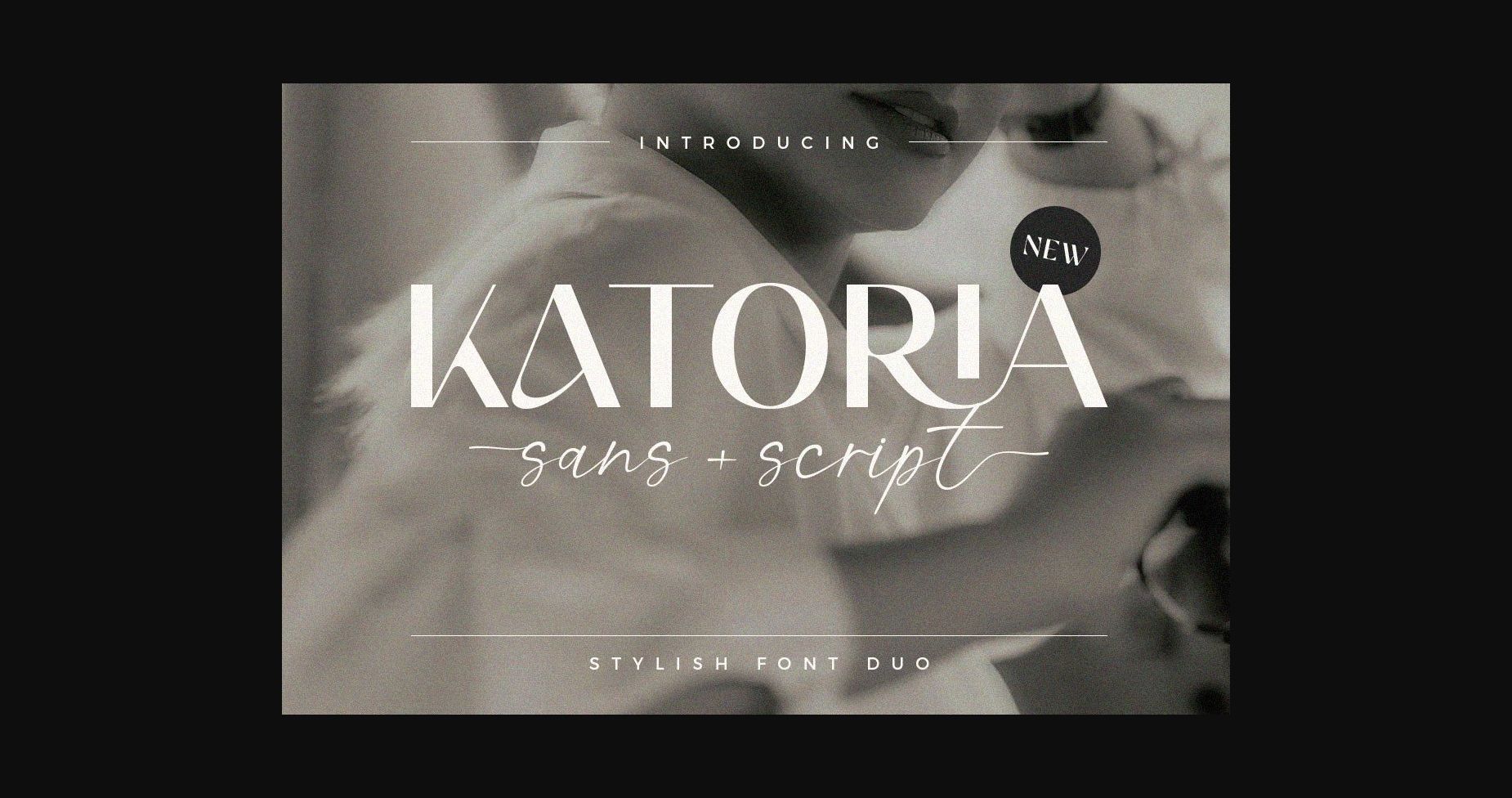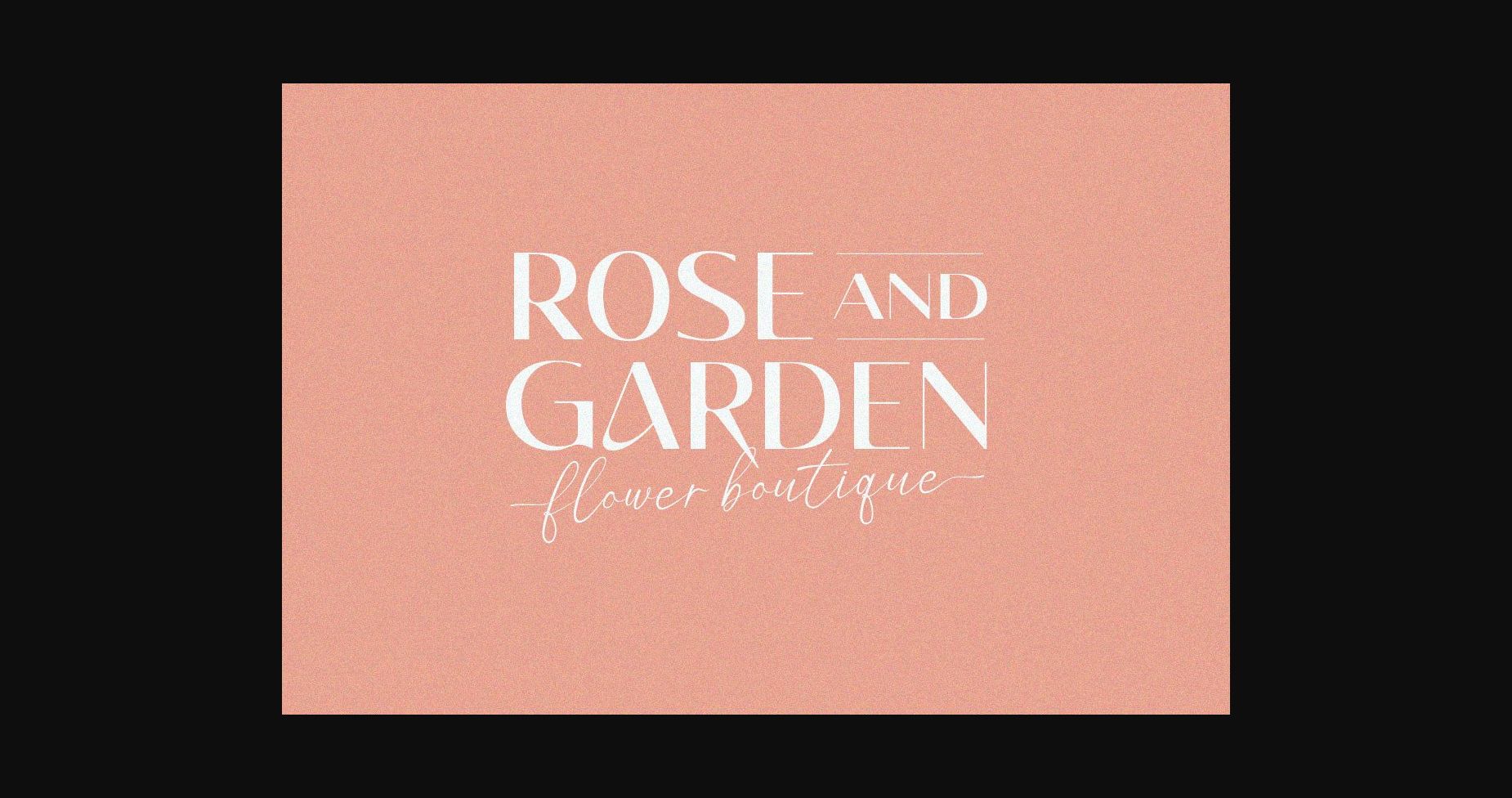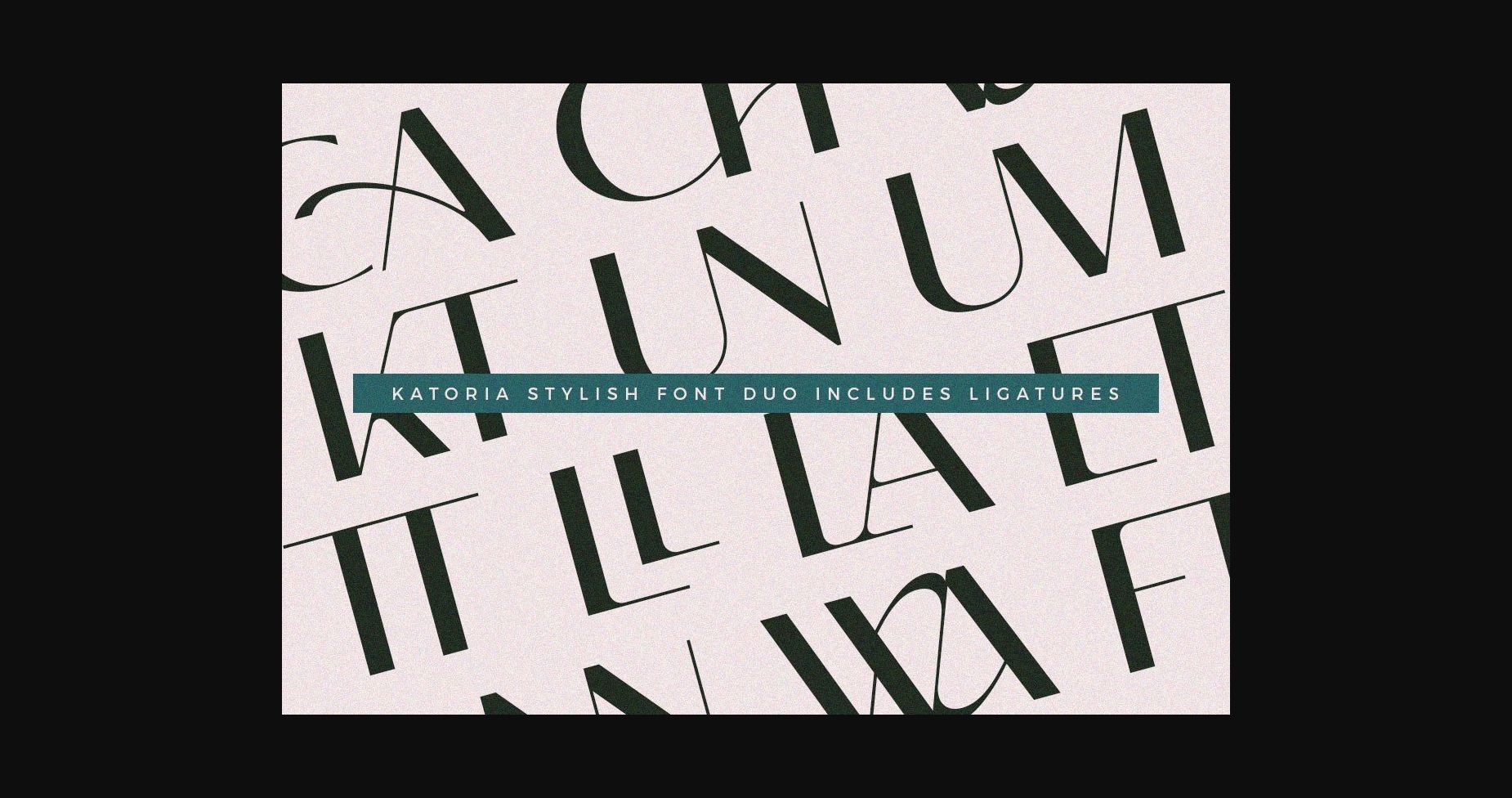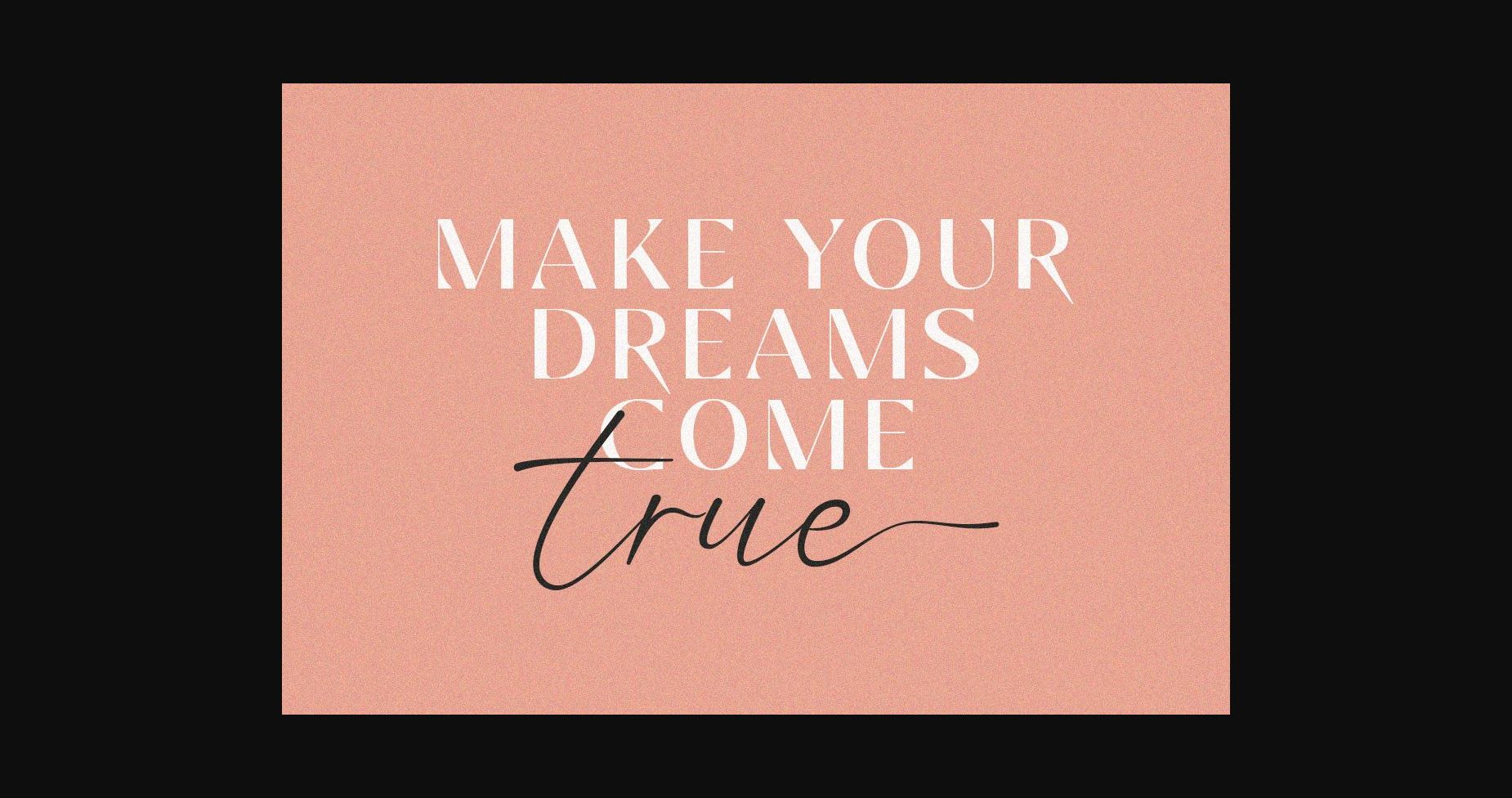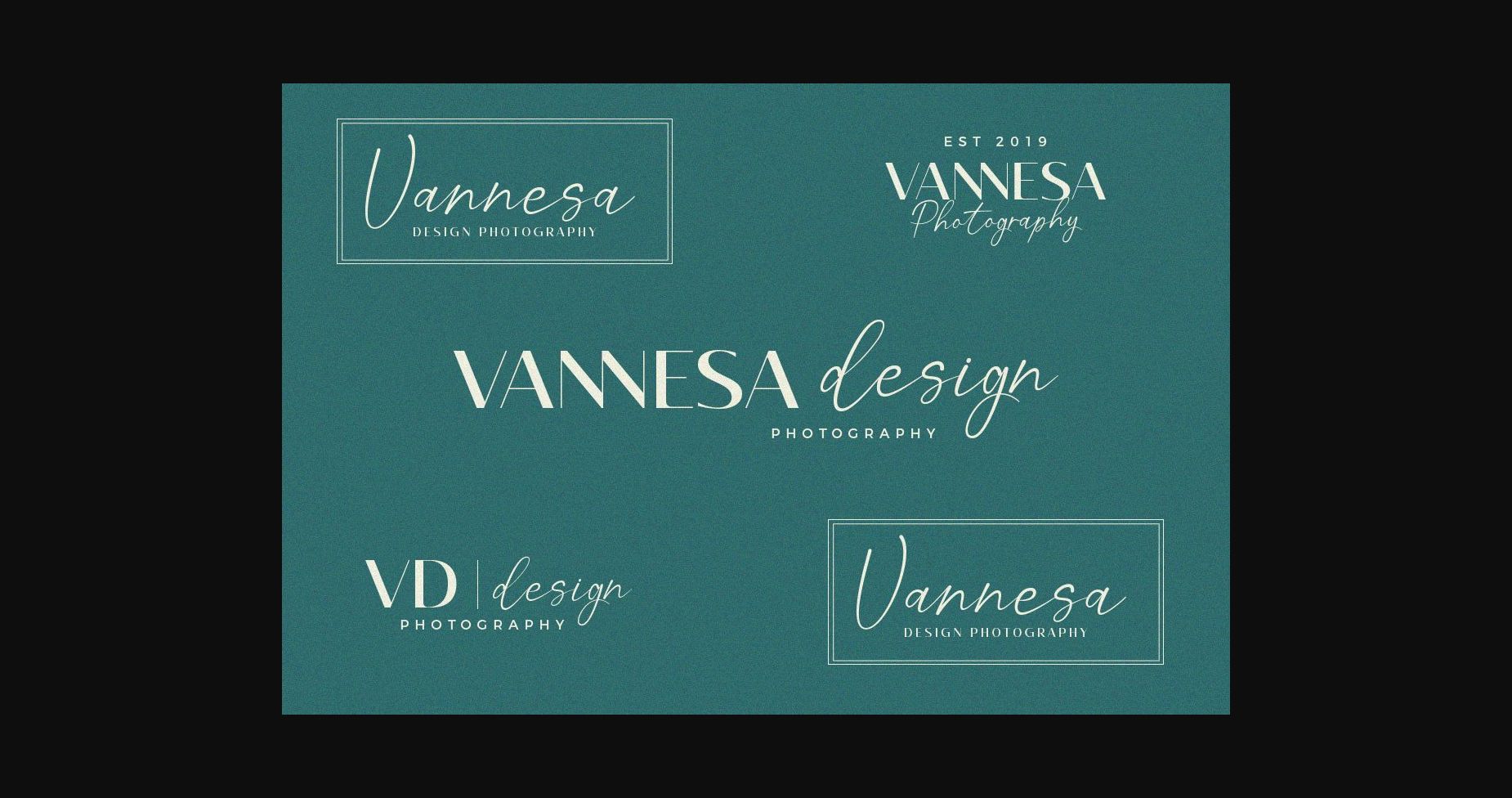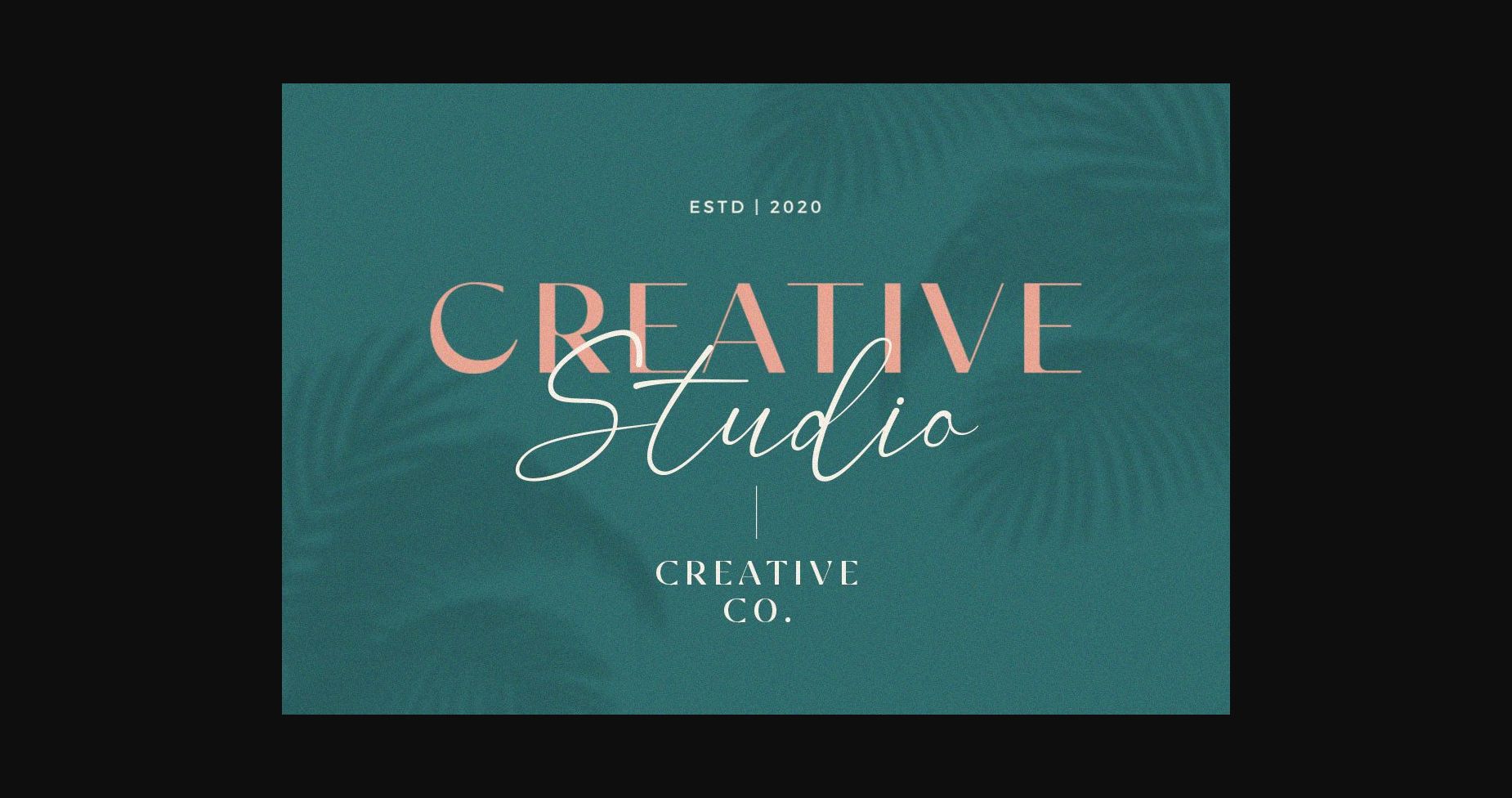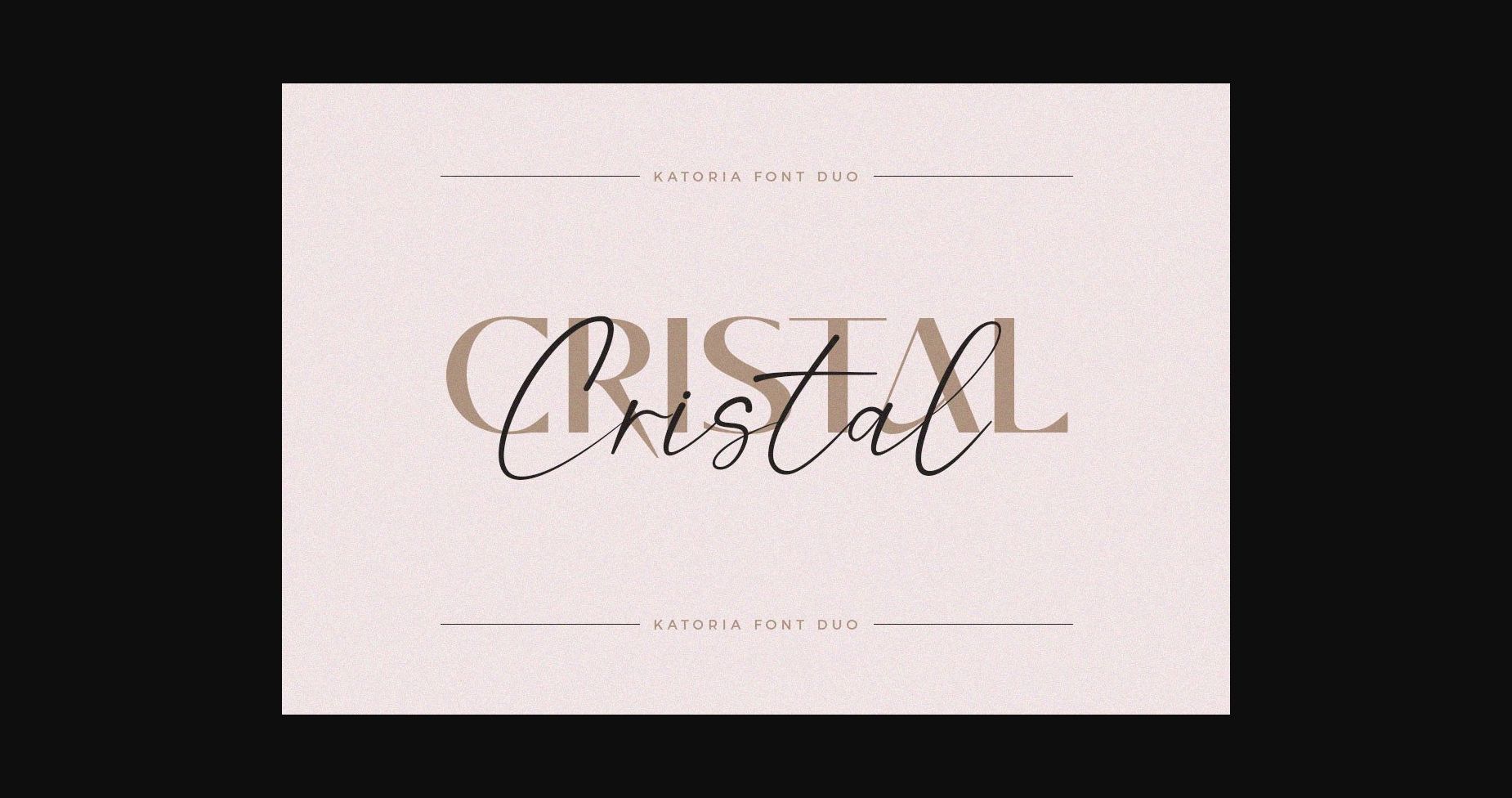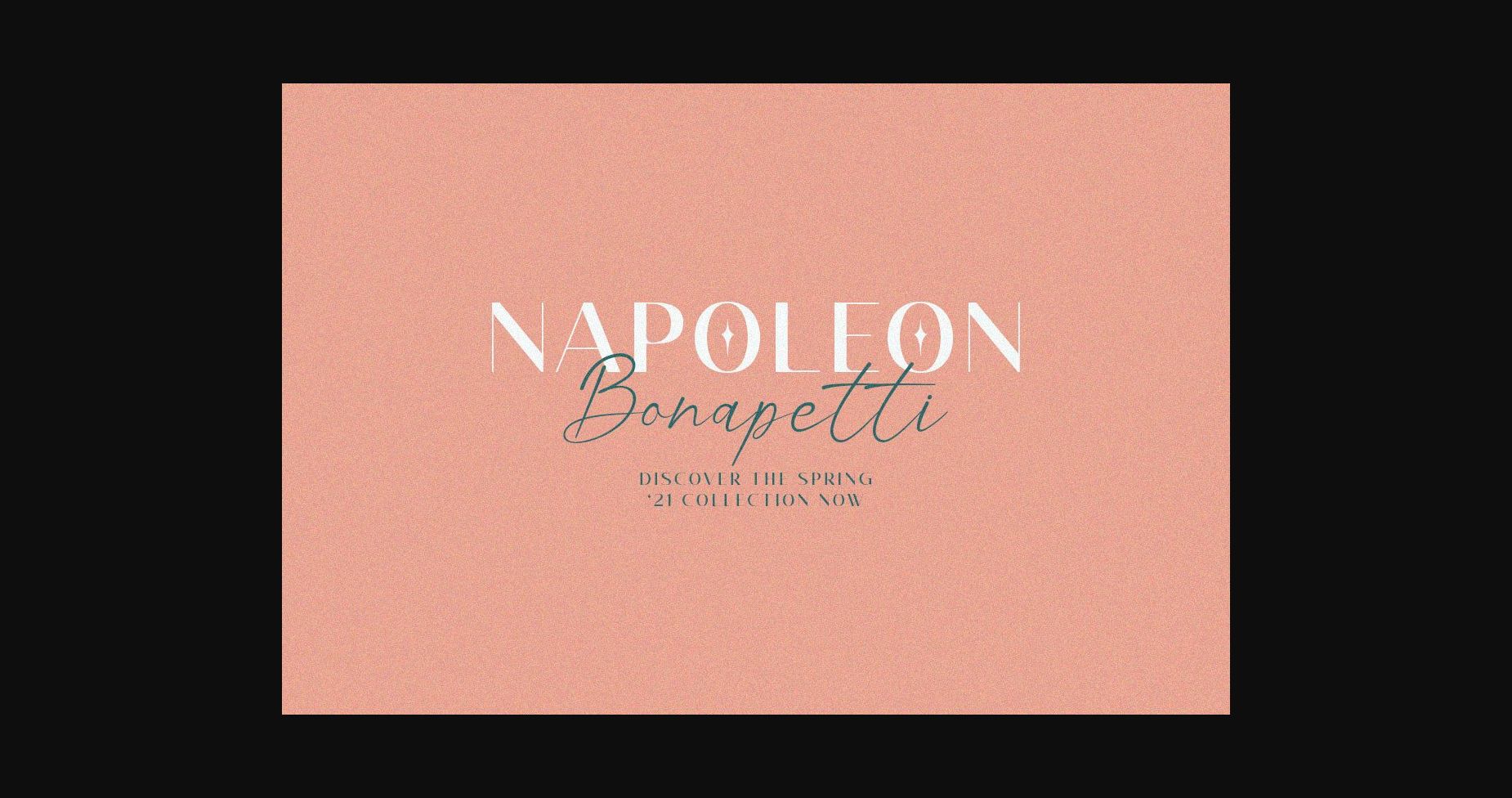
Katoria Font
About Katoria Font
Katoria is a luxury font duo (sans serif and script) with elegant combinations. You can use them together or apart. In this font, all letters are uppercase, you will find various ligatures and alternatives that will help you create a unique design for your project. It is perfect for logos, magazines, social media, and more. This font is easy to use.